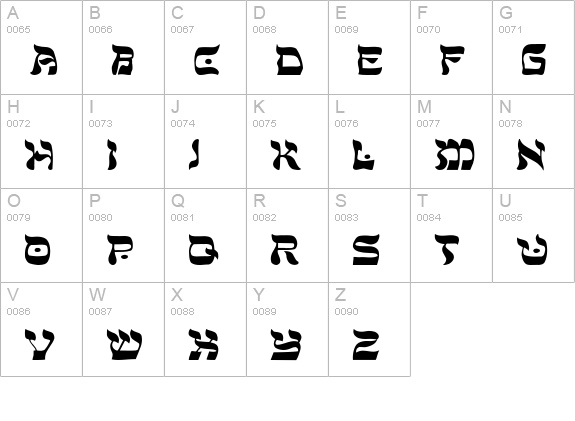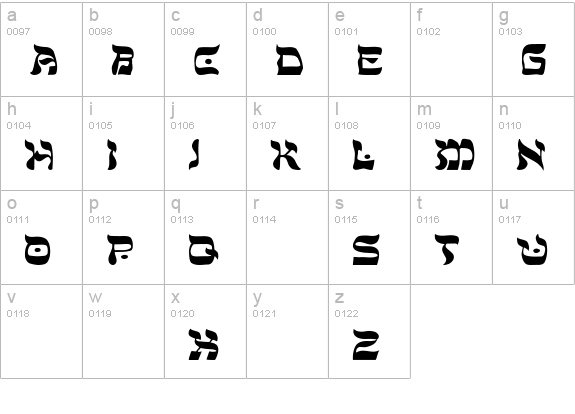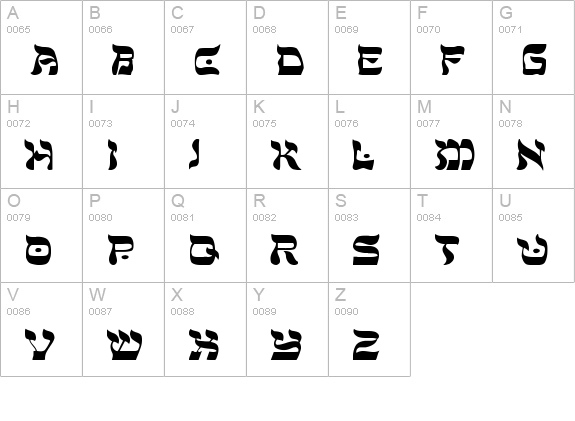
Shalom-Light Font Details
Shalom-Light is a refined, elegant variant in the Shalom typeface family \xE2\x80\x94 well suited to elegant body text, refined sub-headings, and luxury branding.
Introducing Shalom-Light, a beautifully designed font that exudes elegance and sophistication. This font is perfect for any project that calls for a touch of class, whether it be invitations, logos, or promotional materials. Shalom-Light is crafted with utmost precision, showcasing its sleek and modern aesthetic. Its clean lines and well-balanced proportions make it a versatile choice for both print and digital designs. One of the best things about Shalom-Light is that it is completely free! Yes, you read that right. This high-quality font is freely available to download at FontsMarket.com. We believe in making great design accessible to all, and Shalom-Light is a testament to that ethos. With its wide range of characters and glyphs, Shalom-Light offers endless possibilities for creative expression. Its legibility and readability ensure that your message is conveyed effortlessly, while its subtle curves and unique letterforms add a touch of personality to your designs. Whether you are a professional designer or a DIY enthusiast, Shalom-Light is a must-have addition to your font collection. Its versatility and timeless appeal make it suitable for various design styles and purposes. So why wait? Experience the beauty and freedom of Shalom-Light today by downloading it for free at FontsMarket.com. Unleash your creativity and let this font elevate your designs to new heights.